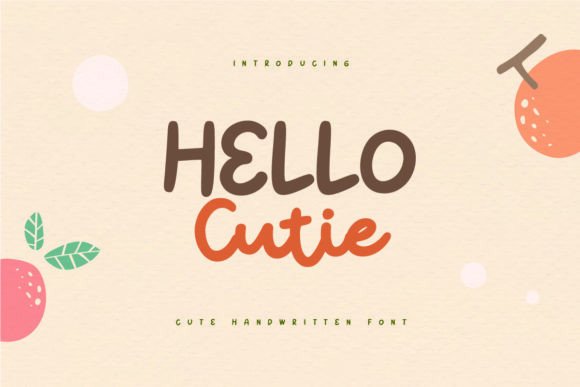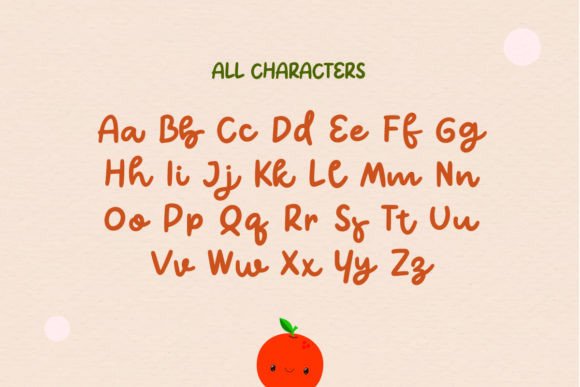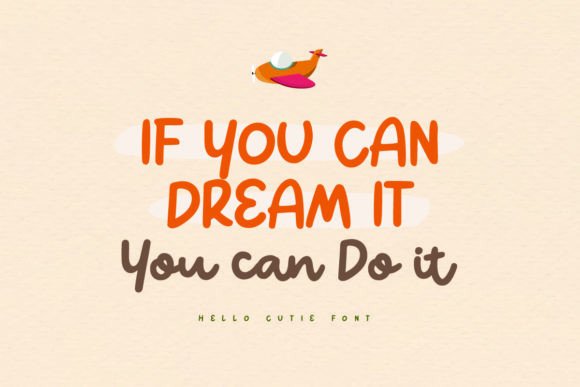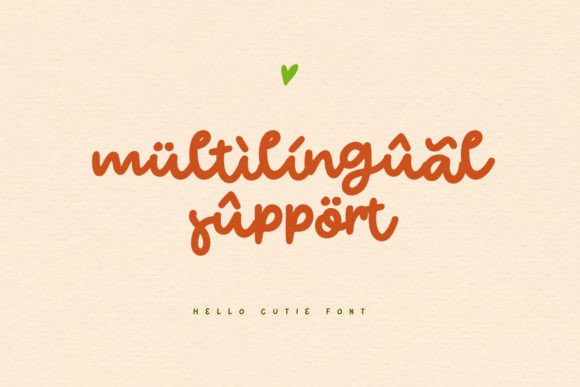
Hello Cutie Font: A Playful Handwritten Font for Cute Designs!
About the Hello Cutie Font
Discover the charm of Hello Cutie Font. This font is a perfect blend of modern aesthetics and classic appeal. Hello Cutie is a cute font with a nice and cheerful style and so charming. This font specially crafted for your quotes design projects or cute logo, unique, modern for any designs such as product, merchandise, and so many more with easy to use but unique results are so cute.
Hello Cutie thrives in applications requiring a playful and approachable aesthetic. It’s ideal for short headlines, logos for children’s products or brands focused on fun and approachability, and packaging for sweet treats or playful merchandise. However, its delicate forms make it unsuitable for body text or UI elements where high readability is crucial. Avoid using it for lengthy paragraphs or situations demanding clear hierarchy in dense text.
Consider pairing Hello Cutie with a clean sans-serif like Open Sans for a balanced contrast, or a slightly more geometric sans-serif such as Montserrat for a modern feel. For a more whimsical pairing, a script font with a similar weight would create a cohesive yet varied look. Avoid pairing it with heavy serifs, which might visually clash with its lighthearted character.
The overall personality of Hello Cutie is undeniably cheerful and friendly, with a touch of modern simplicity. Its charm lies in its delicate details and playful curves, making it an excellent choice for projects that demand a lighthearted and approachable tone.
Hello Cutie Font Usage Examples
Hello Cutie Font Example